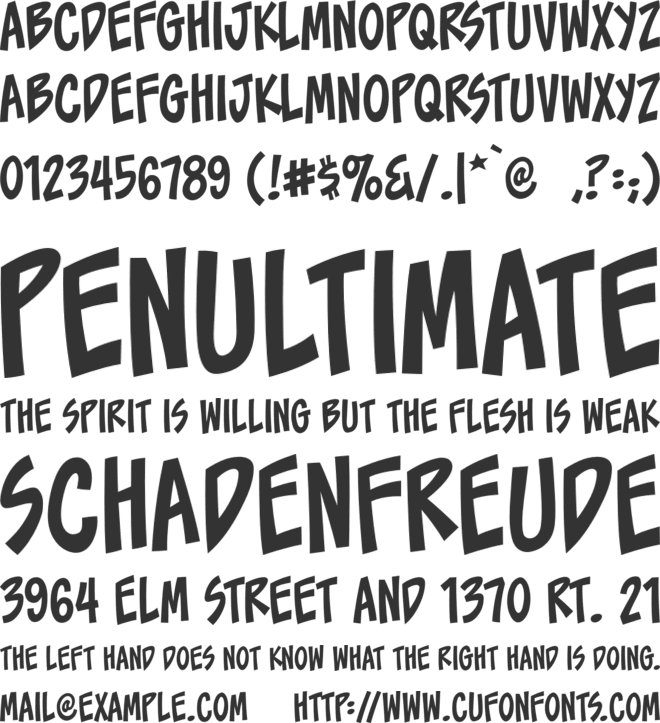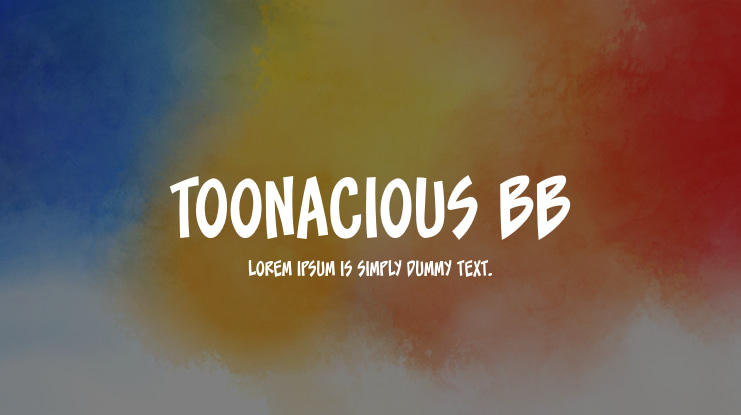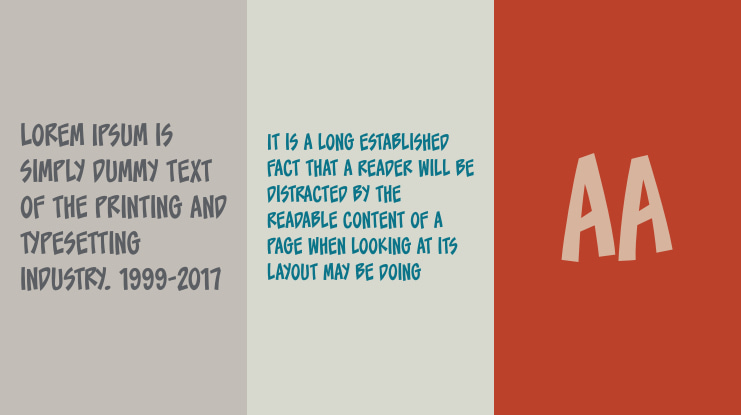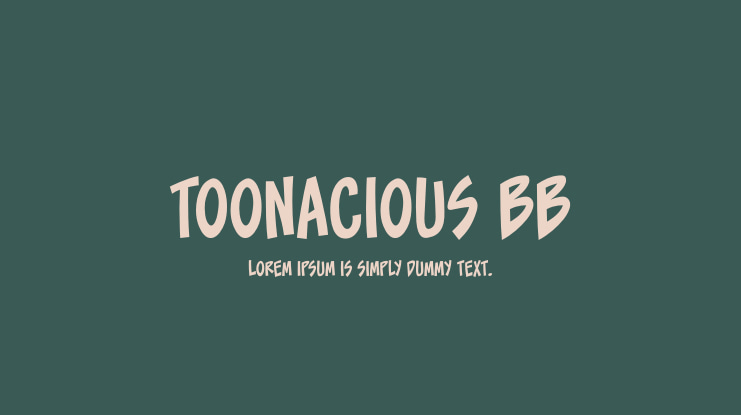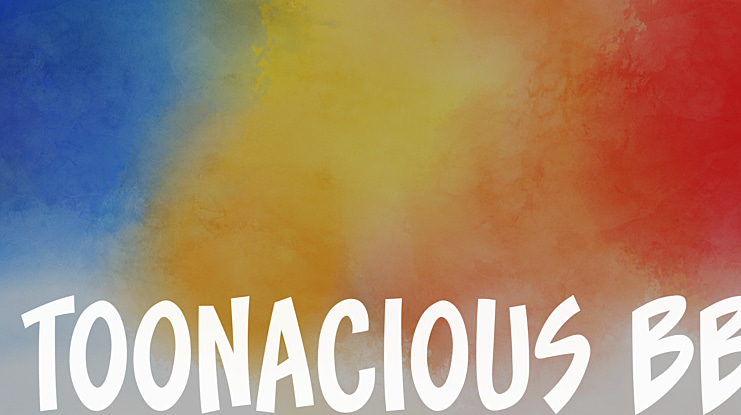
Toonacious BB Font Family
Nate Piekos
Toonacious BB is a seriously cartoony sound effects font with some wacky Opentype autoligatures! Lately I've been lettering a few exaggerated, animation-style comics and I needed something appropriately nutty for sound effects! Now you can use it, too. Enjoy!
ACCESS AUTOLIGATURES, TYPE:
_O_ for swirly O, _o_ for burst O, _0_ for star O.
_!_ for star exclaim, _?_ for swirly question